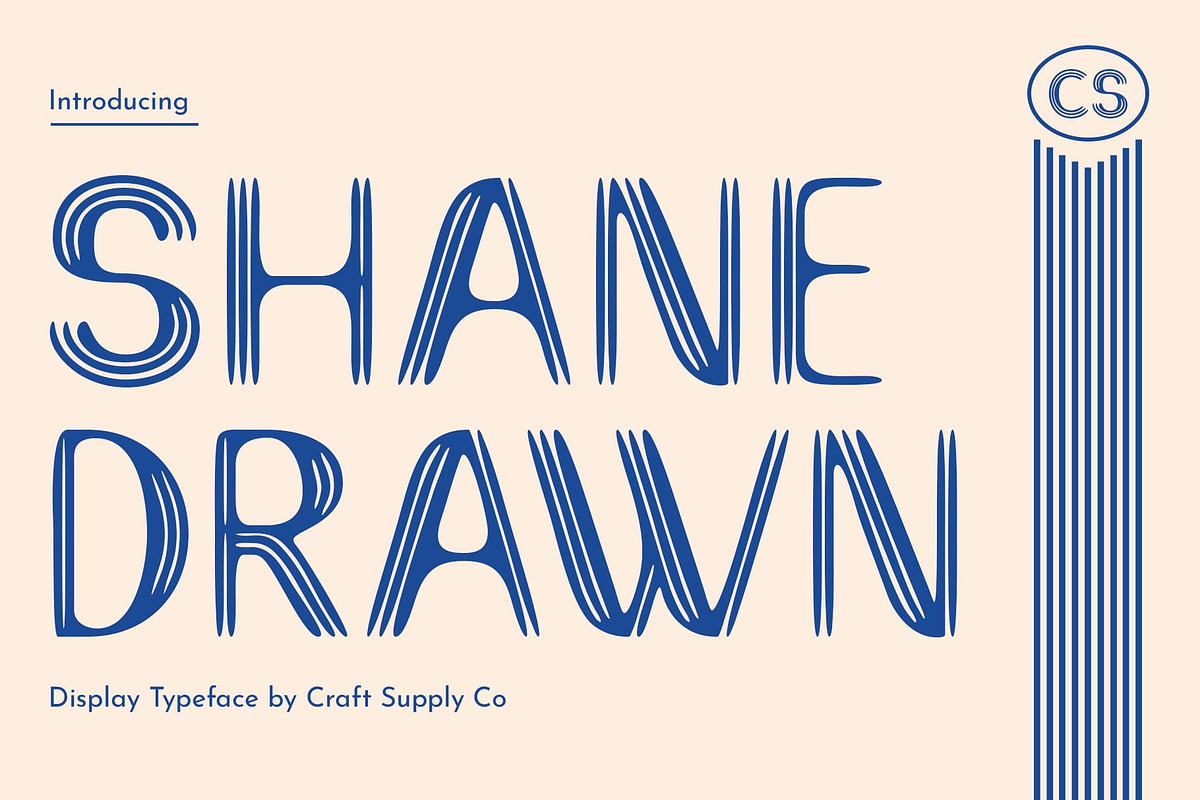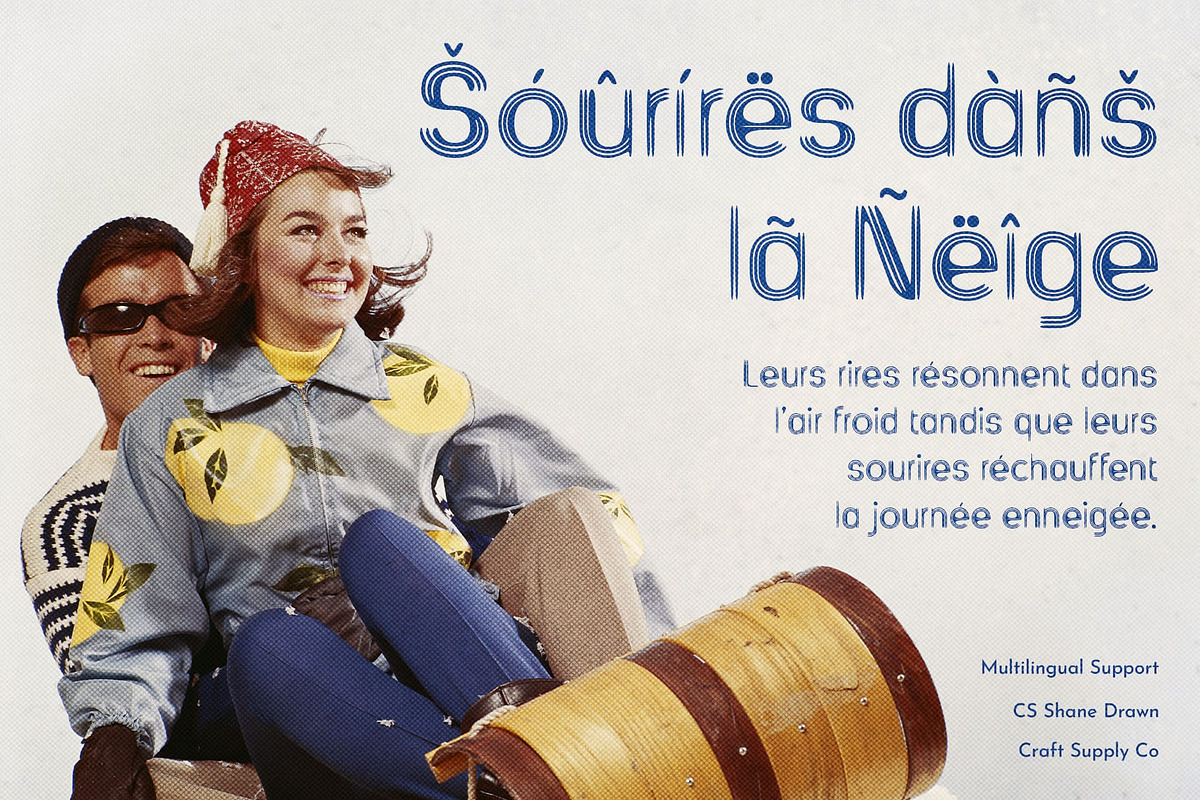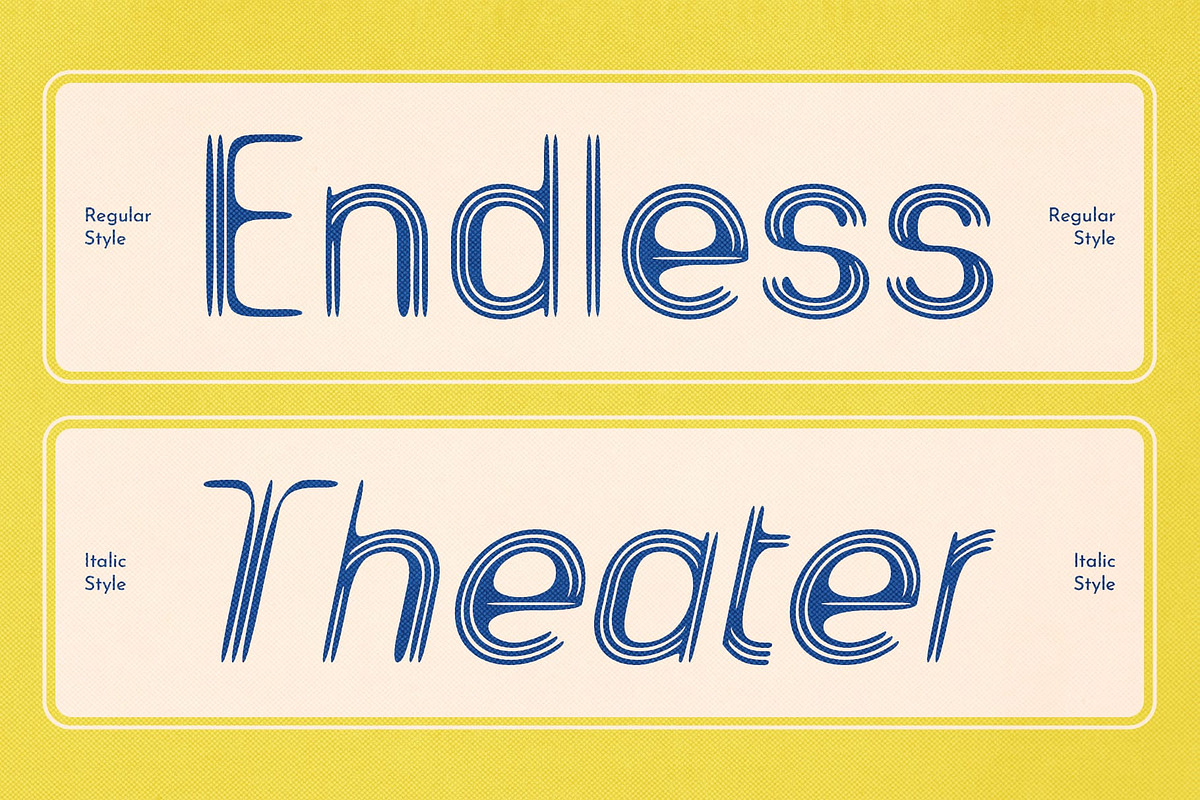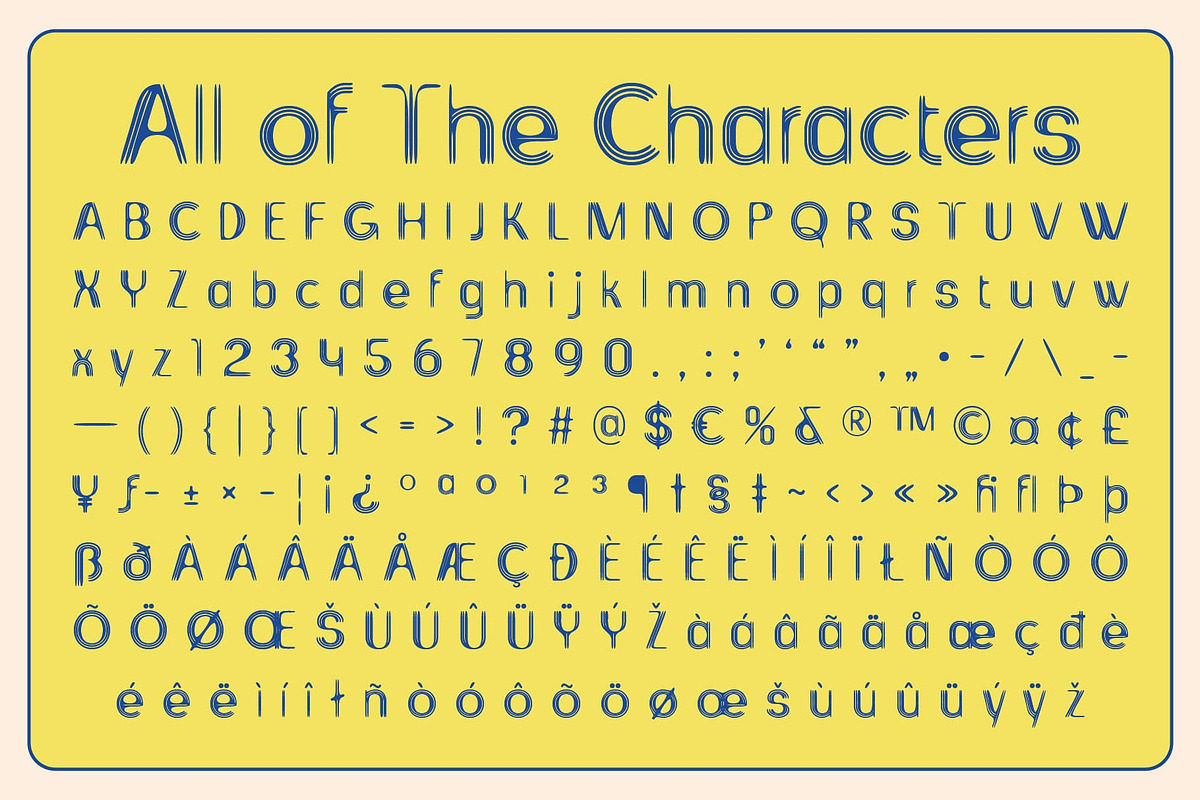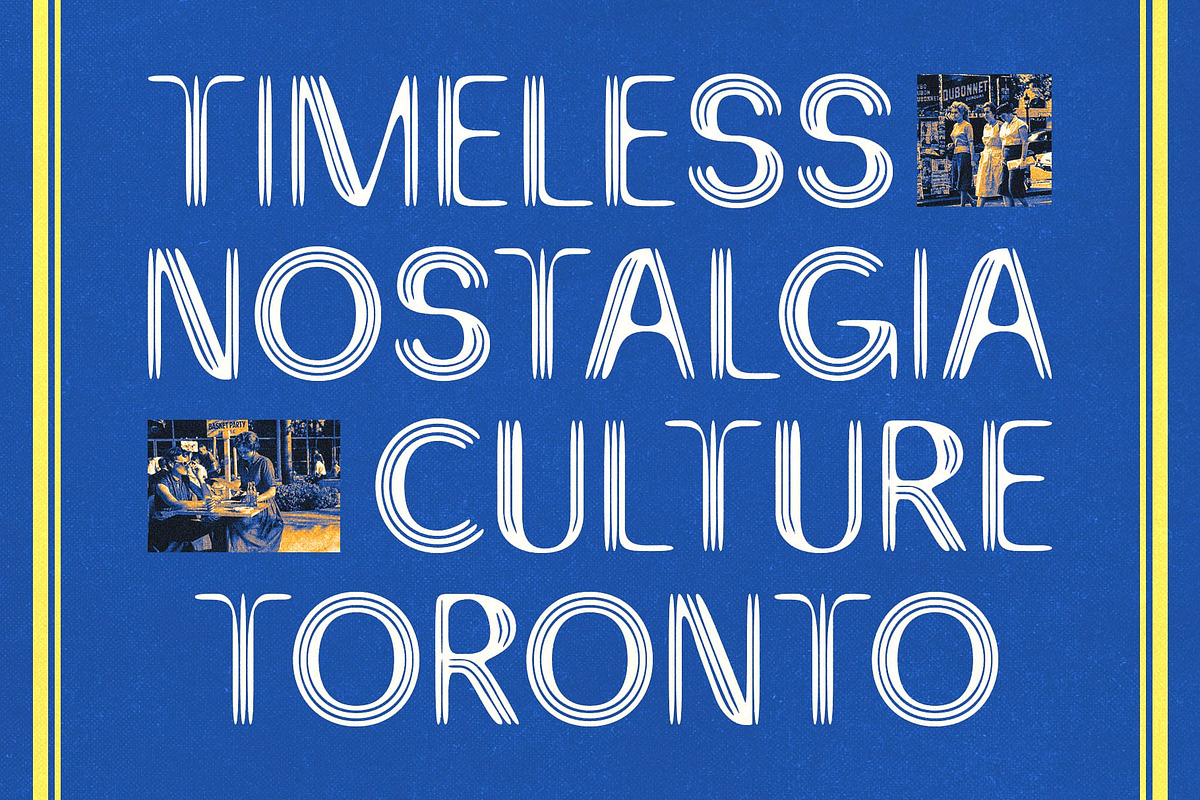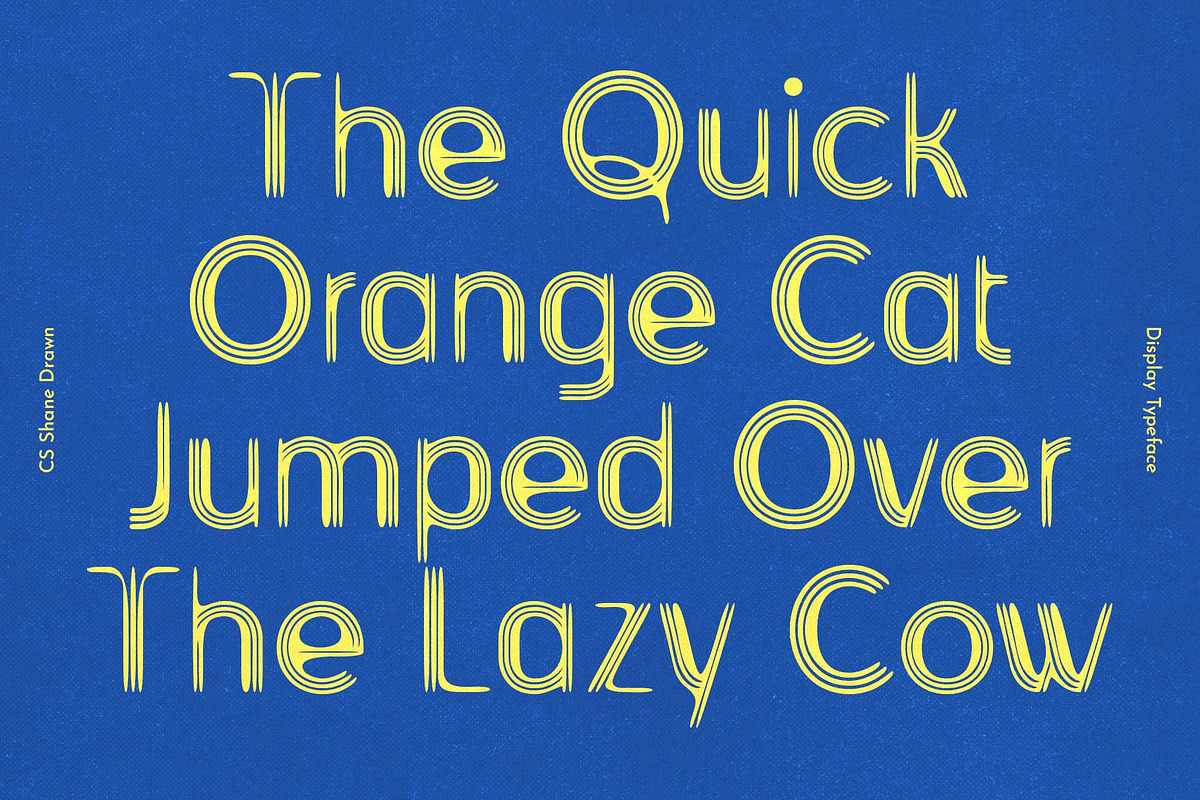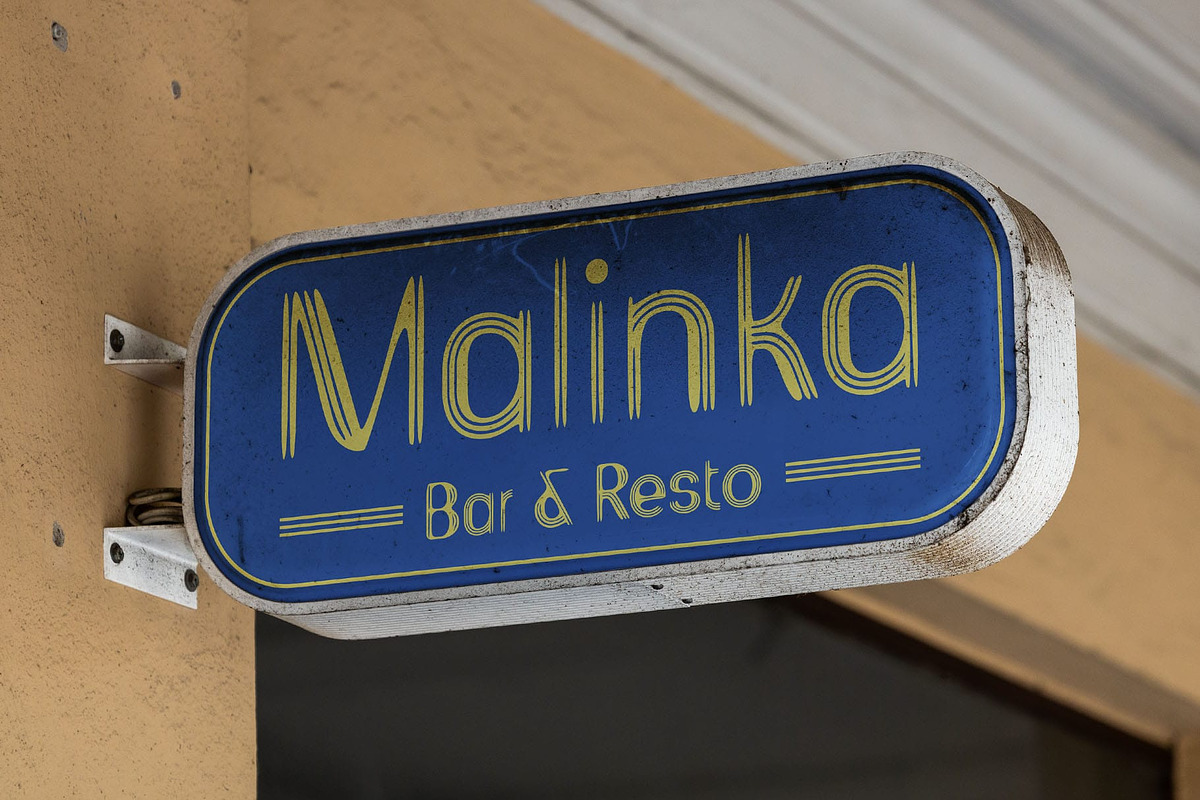
CS Shane Drawn
CS Shane Drawn – Striped Display Font with Vintage Handcrafted Texture: Scribble-Inspired Design
Scribbled with Precision CS Shane Drawn is a unique stripe font that blends the look of scribbled strokes with a structured design. Its hand-drawn texture mimics the effect of ballpoint pen lines, giving each character a crafted, authentic quality. Despite its scribbled influence, the font maintains consistency and balance, making it both expressive and reliable.
Stamp-Like Vintage Effect The striped structure of CS Shane Drawn creates a visual rhythm, reminiscent of stamped lettering. Each letterform carries a vintage tone, perfect for projects that aim to evoke a classic, nostalgic atmosphere. The hand-drawn detailing enhances its retro appeal while keeping it bold and legible for display purposes.
Optical Illusion of Movement Every character in CS Shane Drawn feels alive, built with two or three overlapping pen strokes. This layering effect creates subtle optical illusions, adding depth and energy to the font. The interplay of stripes and texture ensures that your designs gain both dimension and distinct personality.
Ideal for Strong Vintage Statements Perfectly suited for logos, posters, and branding that call for a bold vintage identity, CS Shane Drawn combines handcrafted artistry with structured clarity. Whether you want to emphasize tradition, retro energy, or creative individuality, this display font delivers striking results with its striped and scribbled character.